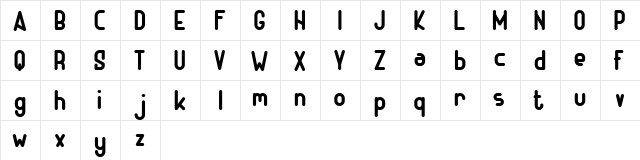
ADHE Sans Bold FREE Bold
Design Context for ADHE Sans Bold FREE Typeface
ADHE Sans Bold FREE is a composed and adaptable typeface that performs quietly and consistently across a wide range of design contexts. The heavy weight commands attention and anchors typographic hierarchies.
Pro Tip: Use ADHE Sans Bold FREE in both headline and body roles to test its range before committing to a single application.